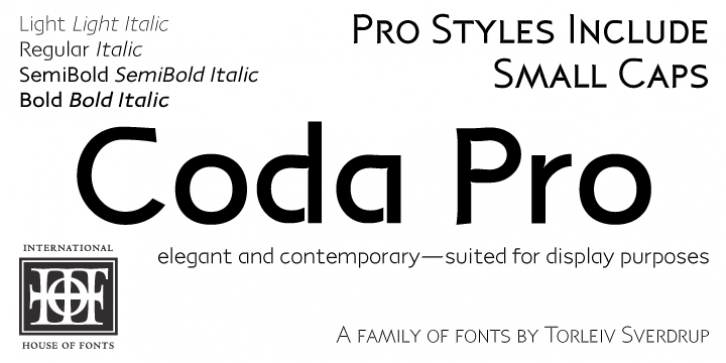
P22 Coda is a sans serif font family. This typeface has twenty-four styles and was published by International House of Fonts.
Coda Pro is a simple but decorative and controlled sans serif design.
Coda literally means ‘tail’ (Italian, from latin cauda) and refers to the way the letters h, m and n stretch below the writing line towards the end of a sentence or before a final stop.
Coda Pro is an elegant and contemporary font suited for display purposes.